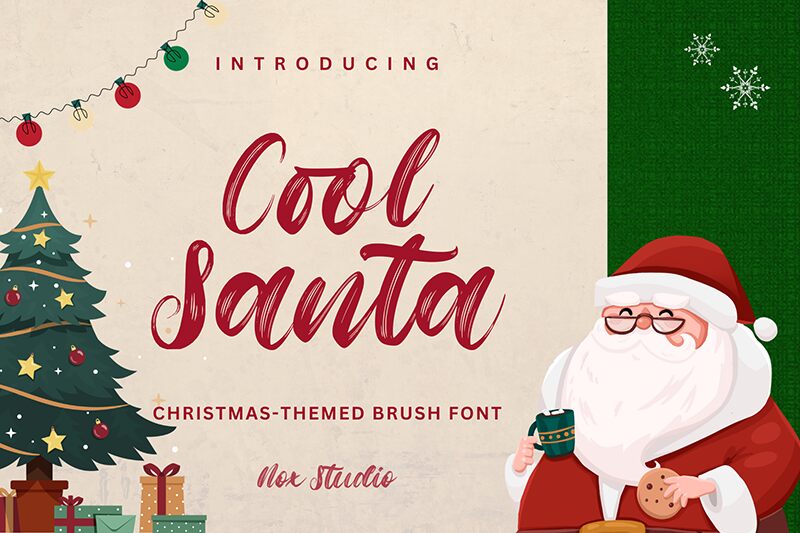
Cool Santa
Cool Santa font is a free brush script font designed by Sarif Letter. Its casual, expressive style delivers modern vibes in every word with natural and artistic textured strokes. This bold typeface takes inspiration from Christmas with playful, relaxed characters to instantly engage with your audiences.